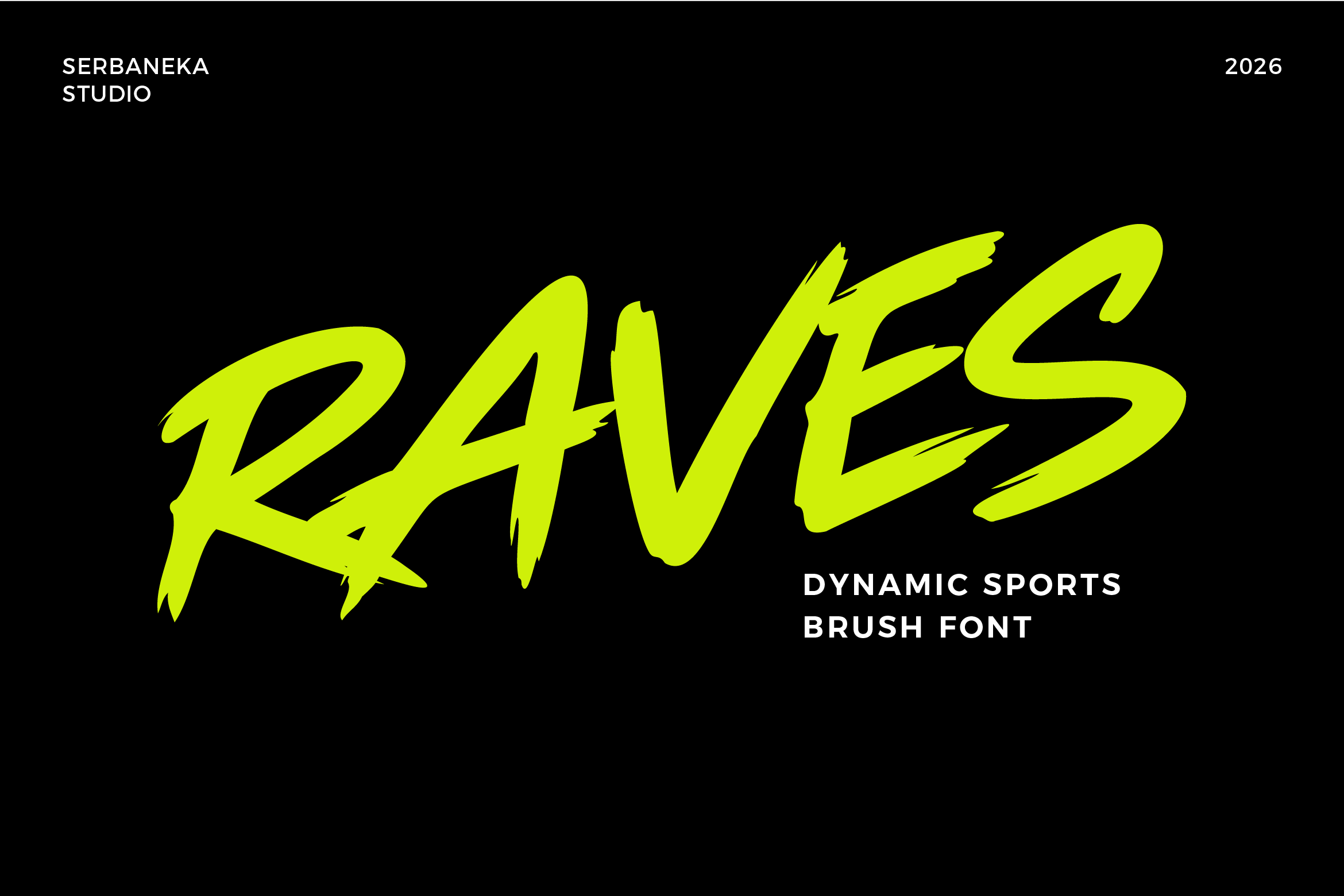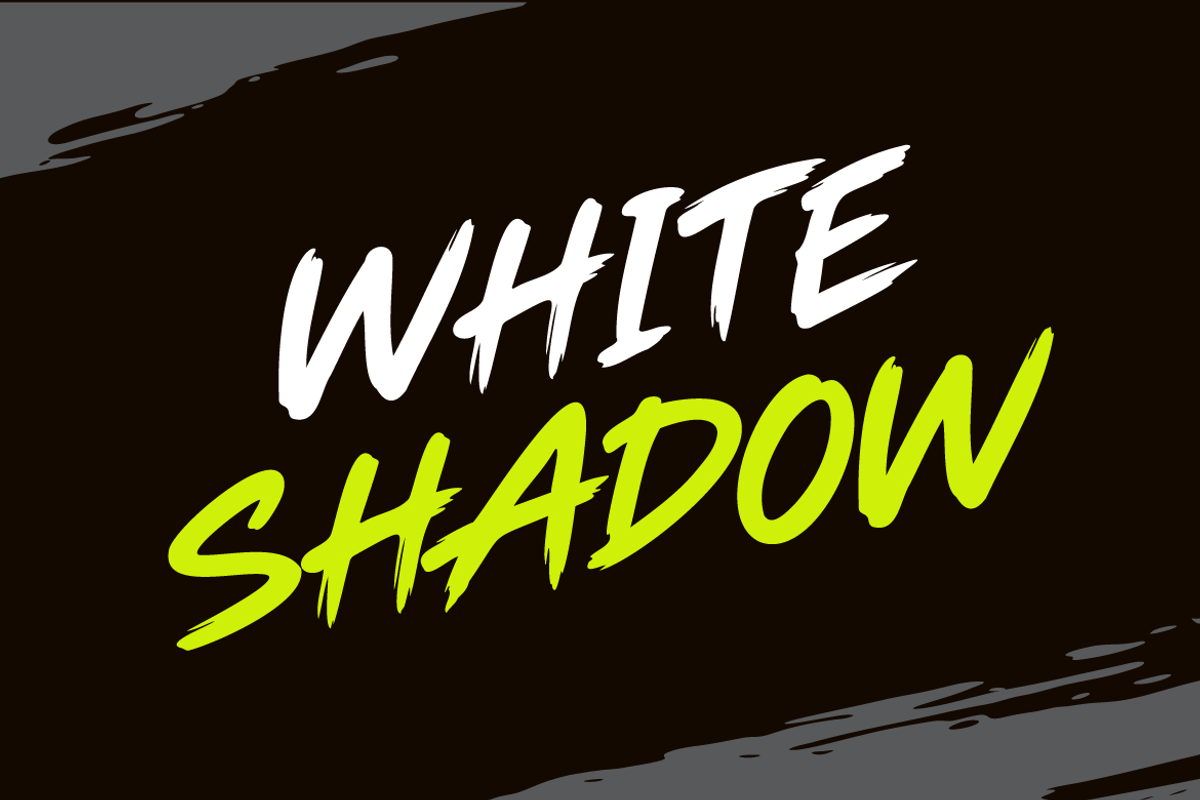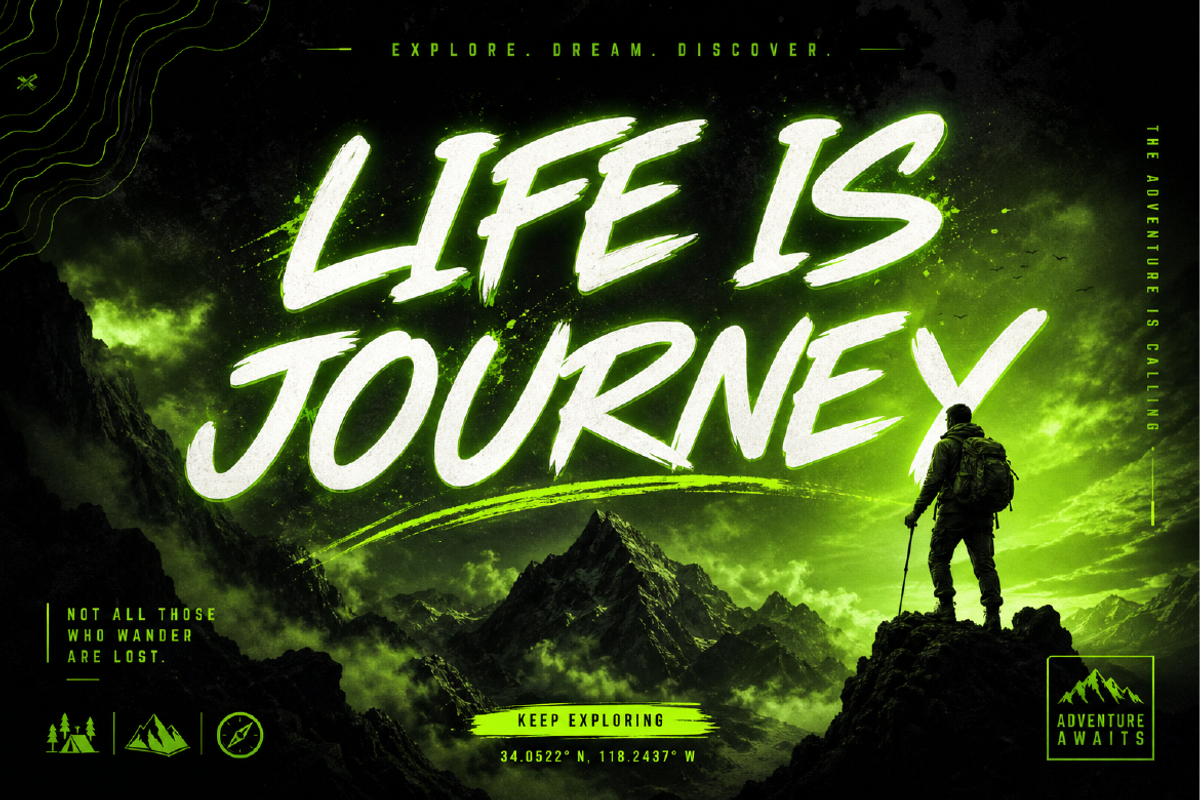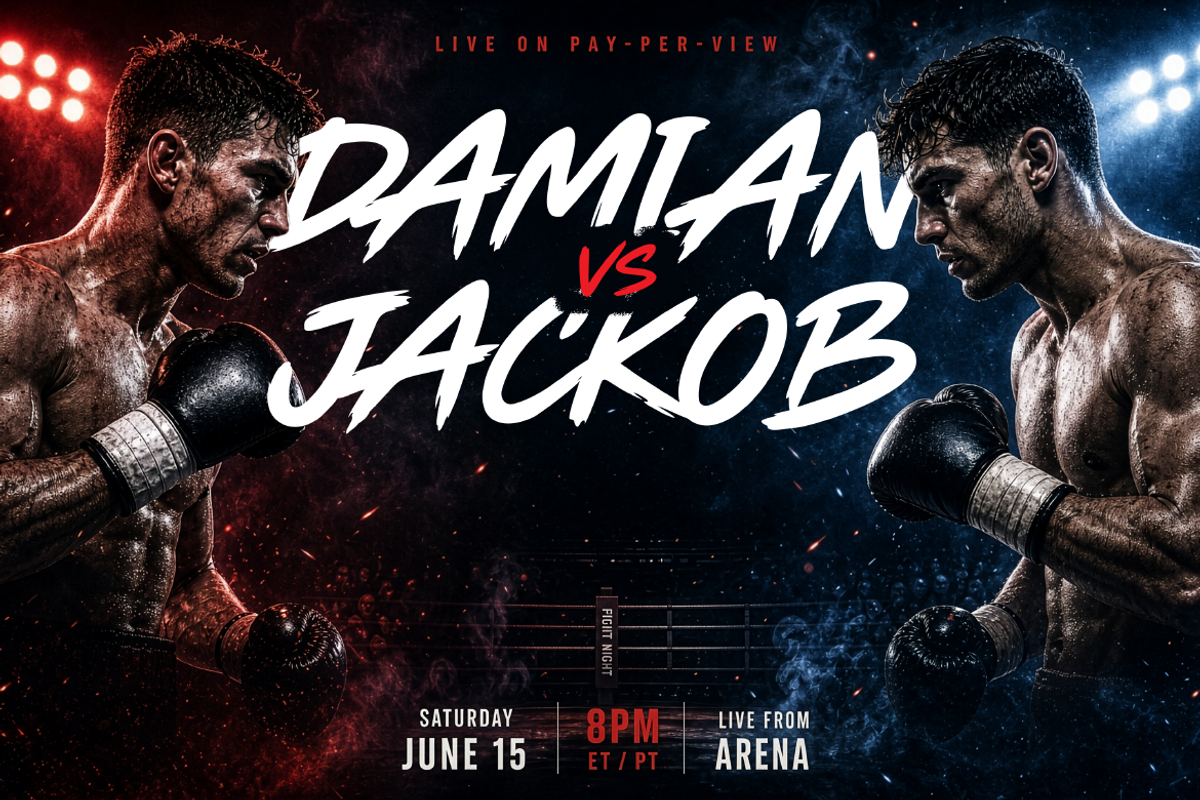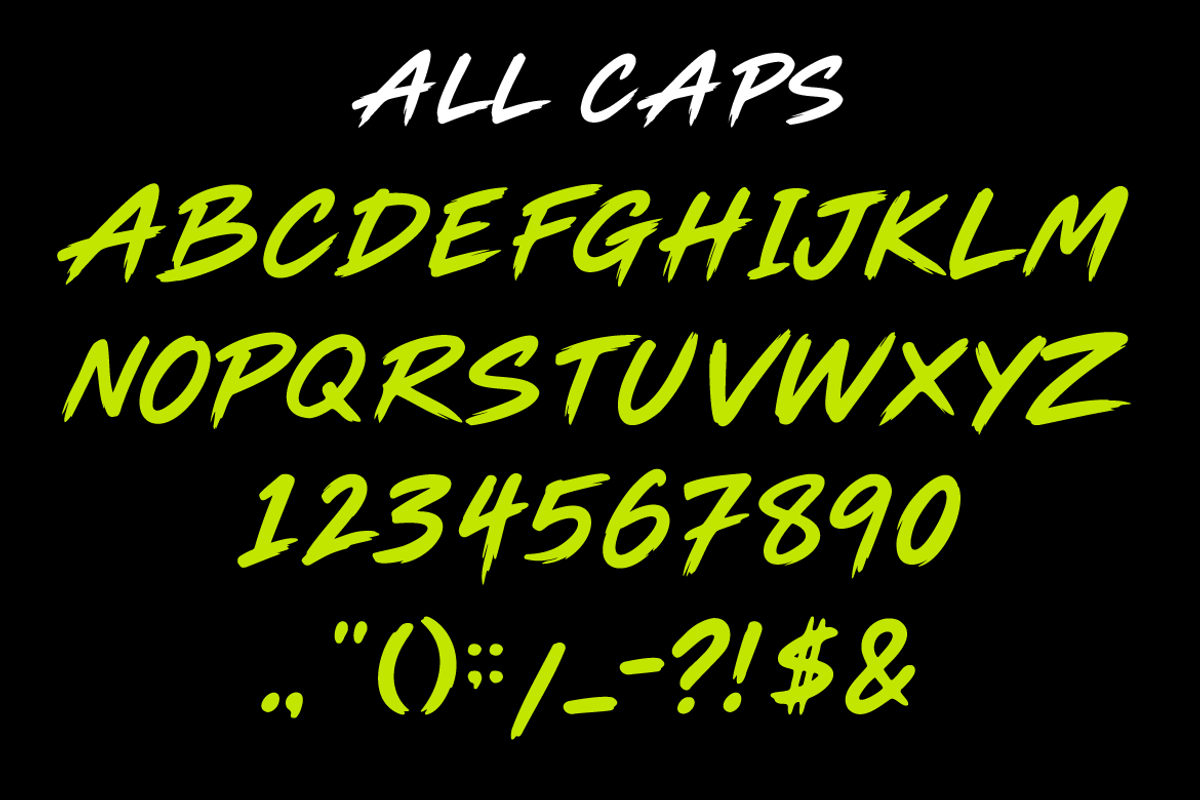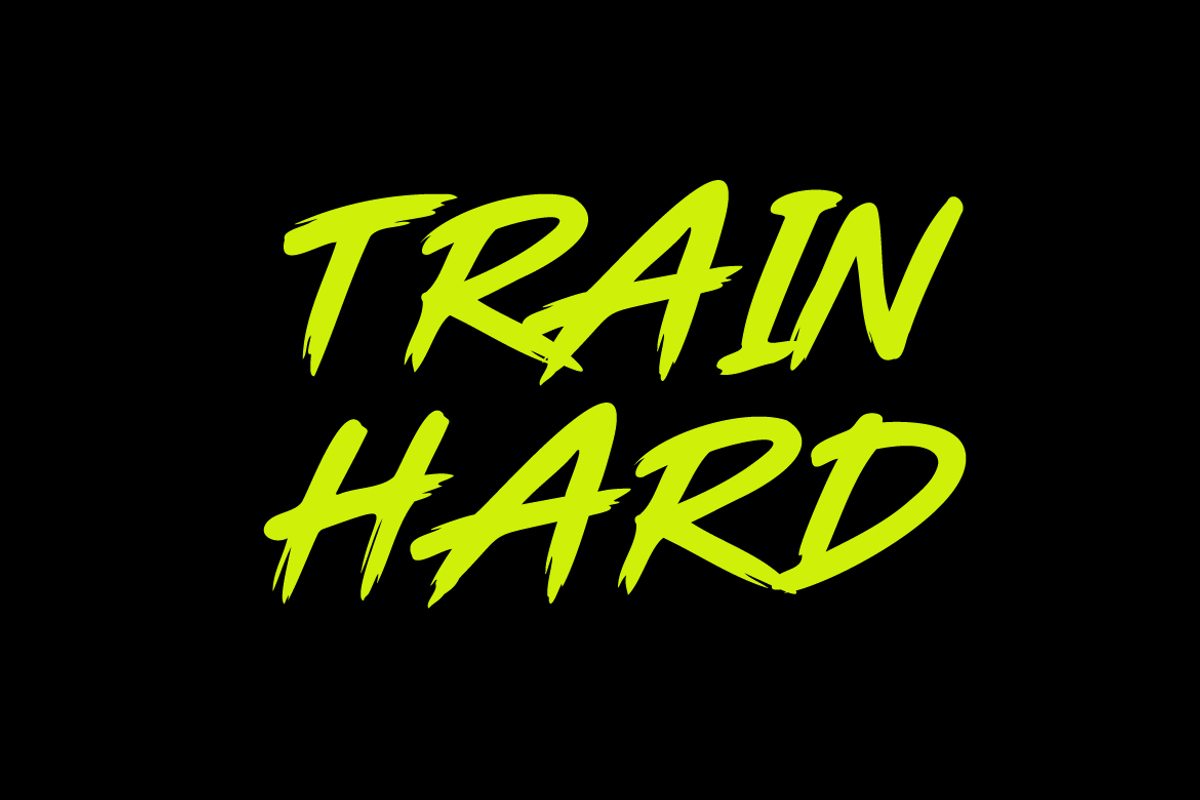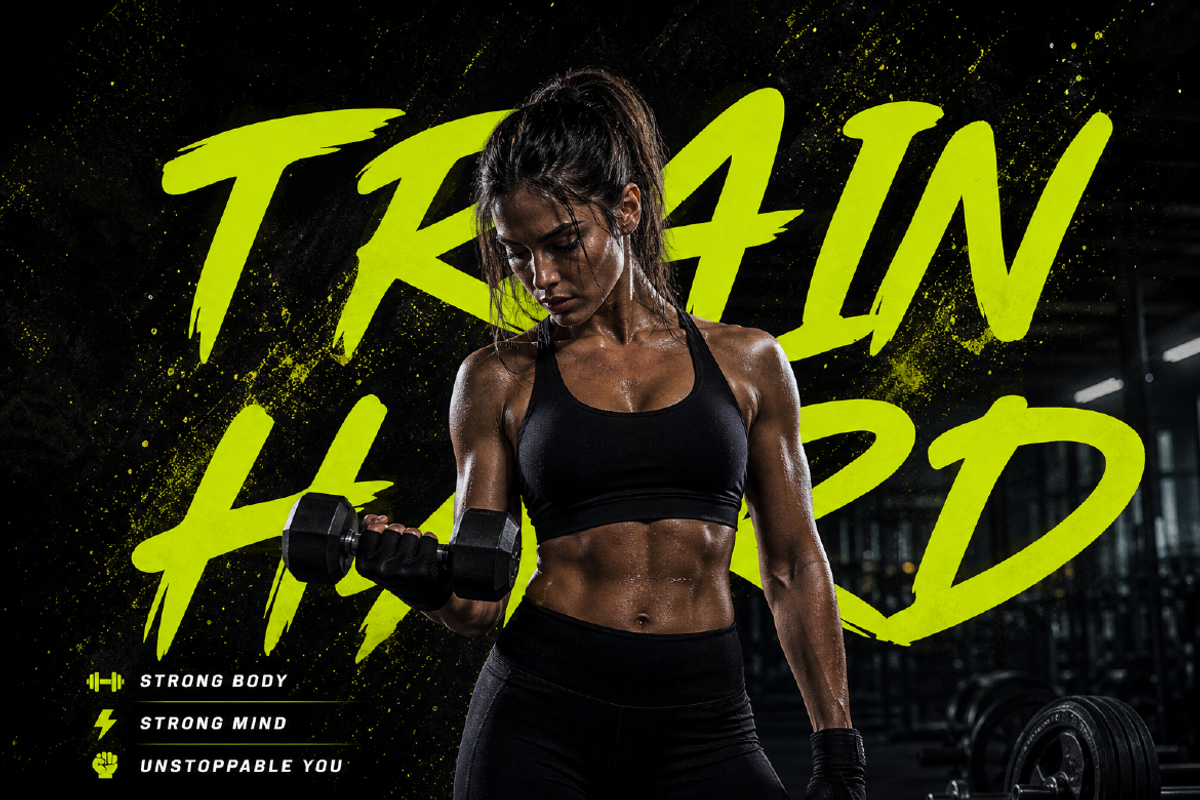
Raves Dynamic Sports Brush Font
This dynamic brush display font features bold, hand-painted strokes with a strong and energetic character. The letterforms are sharp, fast, and slightly rough, creating an authentic brush texture that feels powerful and full of motion.
Designed to capture speed and intensity, each character delivers a raw and expressive look that stands out in high-impact designs. Its natural brush flow and irregular edges add a sense of movement, making it perfect for attention-grabbing headlines.
✦ Features :
Uppercase (All Caps)
Brush Style Letterforms
🎯 Perfect for :
Sports branding and logos
Fitness and gym designs
Esports and gaming graphics
Fight night and event posters
Action movie titles
YouTube thumbnails
Motivational quotes and content